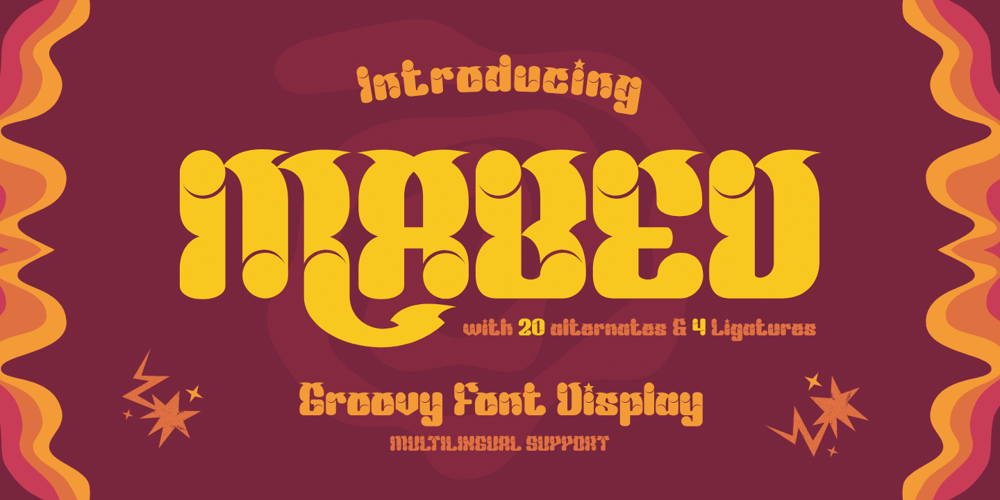
Mabed
Mabed font
Mabed Font Family was designed by Rozikan and published by Twinletter. Mabed contains 1 styles and family package options. Mabed is a psychedelic font, but it’s not just a retro font. This is a special font inspired by the classic 60’s style. Your projects will be both vintage and fun using this font, create your coolest designs with a super psychedelic vibe with a style that stands out from the crowd.What’s Included :- File font- All glyphs Iso Latin 1- Alternate, Ligature- Simple installations- We highly recommend using a program that supports OpenType features and Glyphs panels like many Adobe apps and Corel Draw so that you can see and access all Glyph variations.- PUA Encoded Characters – Fully accessible without additional design software.- Fonts include Multilingual support